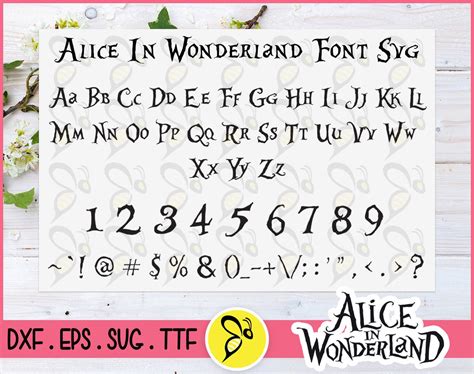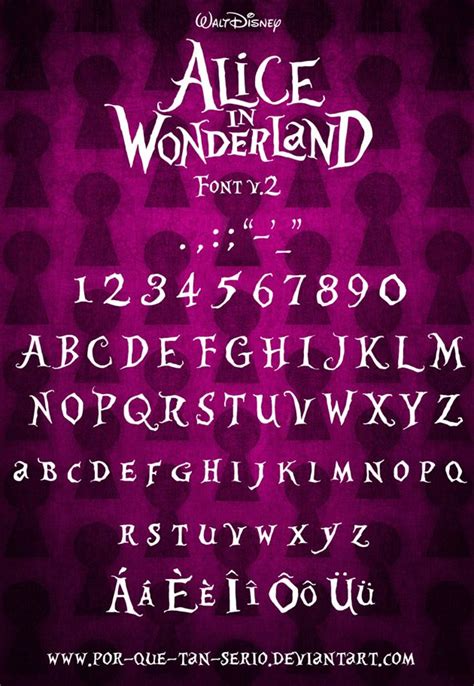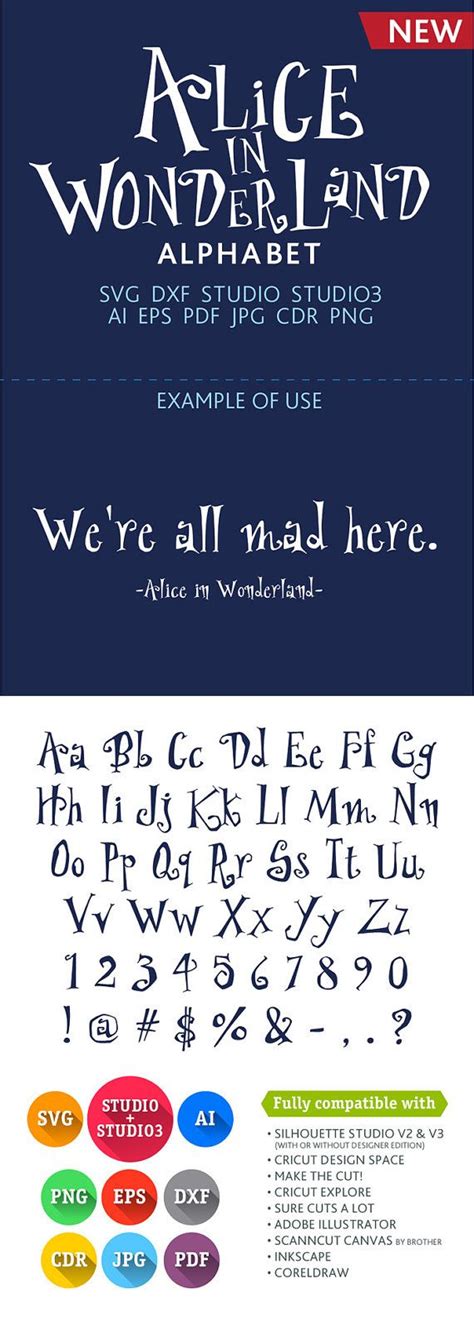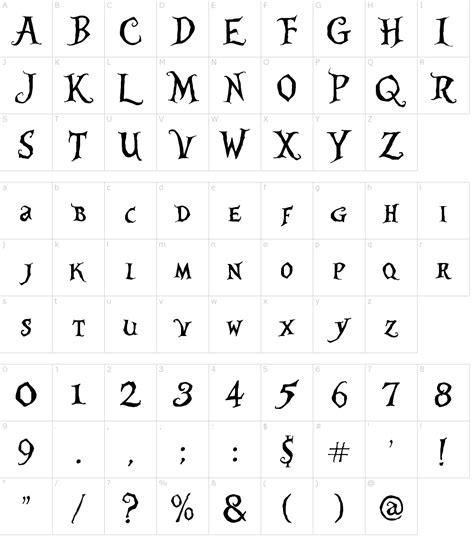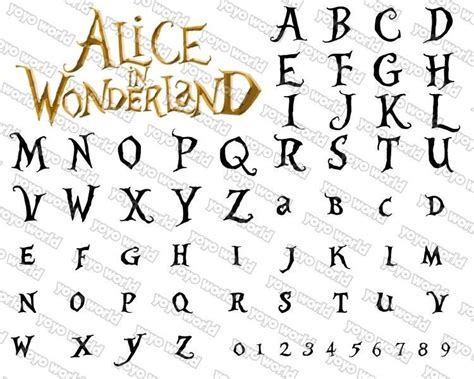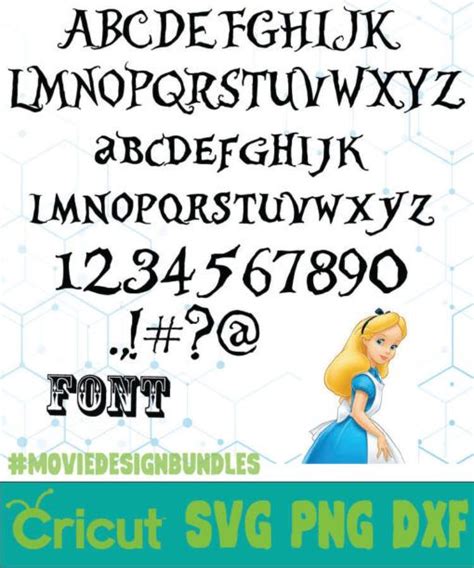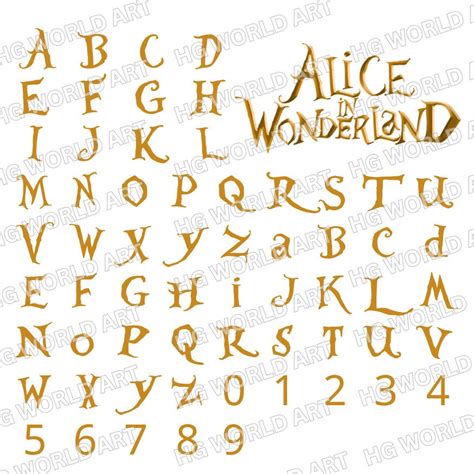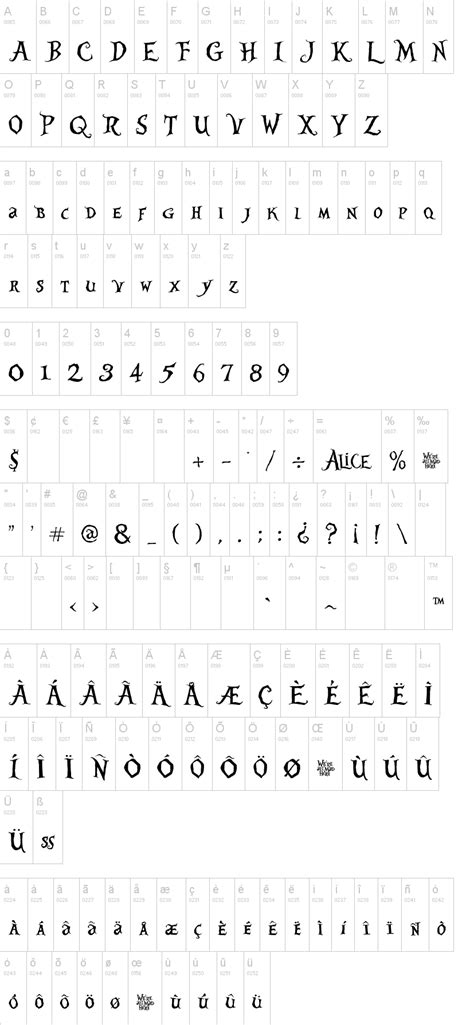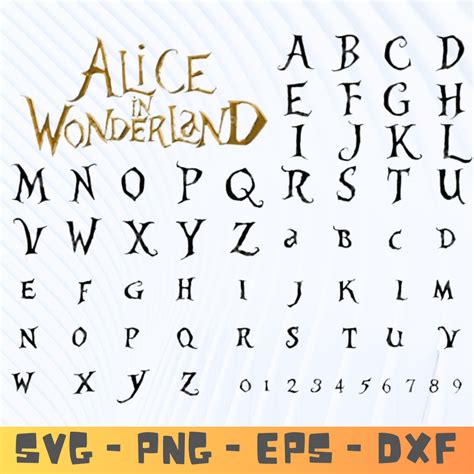
ALICE IN WONDERLAND FONT
The Alice in Wonderland Font is a captivating and whimsical font inspired by the beloved children's book and its iconic characters. This font captures the essence of Lewis Carroll's imaginative world, transporting users to a realm of wonder and fantasy. With its unique design, this font offers a delightful way to bring the charm of Wonderland to various creative projects.
The font features a playful and quirky style, reminiscent of the madcap adventures of Alice. Its letters are crafted with intricate details, often incorporating elements from the original illustrations, such as curly vines, tiny creatures, and surreal landscapes. This attention to detail adds a touch of magic to any text, making it perfect for invitations, book covers, and even digital art.
One of the key benefits of using the Alice in Wonderland Font is its ability to evoke a sense of nostalgia and wonder. It can transport readers back to their childhood, sparking imagination and creativity. Whether used in literature, graphic design, or educational materials, this font has the power to engage and captivate audiences of all ages.